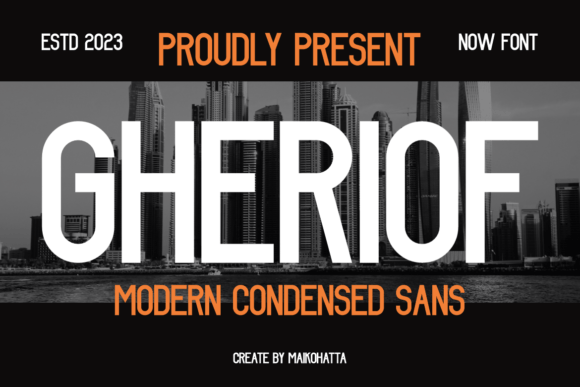
Introducing Gheriof Font, the ultimate font style for movie posters that will take your designs to new heights! Created by the talented maikofarazhatta, this sans serif font is a game-changer in the world of typography.
Gheriof Font is the epitome of elegance and sophistication. Its narrower and slimmer letterforms set it apart from regular or wide fonts, making it a go-to choice for designers who strive for a sleek and modern look. With its condensed nature, this font exudes a sense of professionalism and refinement that is perfect for capturing attention and leaving a lasting impression.
Imagine your movie poster standing out from the crowd, drawing viewers in with its captivating typography. Gheriof Font brings your words to life, adding a touch of allure and intrigue to your designs. Whether you're promoting a gripping thriller, a heartwarming romance, or an action-packed adventure, this font effortlessly sets the tone and sets your movie apart from the rest.
But Gheriof Font isn't limited to movie posters alone. Its versatility extends to various graphic designs, print materials, and other media. Let your creativity soar as you explore the endless possibilities this font offers. From eye-catching banners to attention-grabbing flyers, Gheriof Font guarantees to leave a lasting impression on your audience.
The unique characteristics of Gheriof Font make it a must-have for any designer seeking to make a statement. Its stylish and contemporary aesthetic appeals to today's discerning audience, ensuring that your designs remain relevant and impactful. With this font in your arsenal, you can effortlessly elevate your projects and capture the attention of potential buyers.